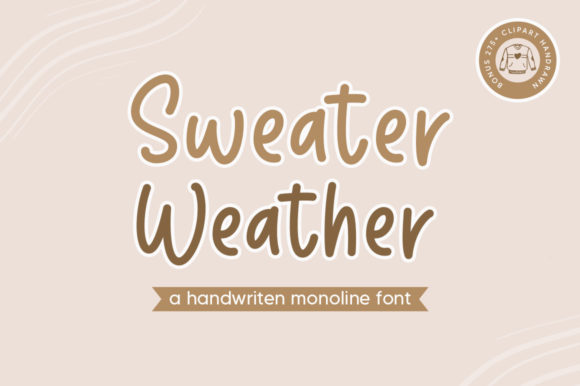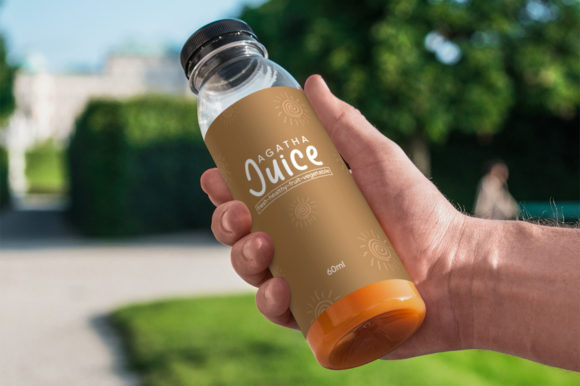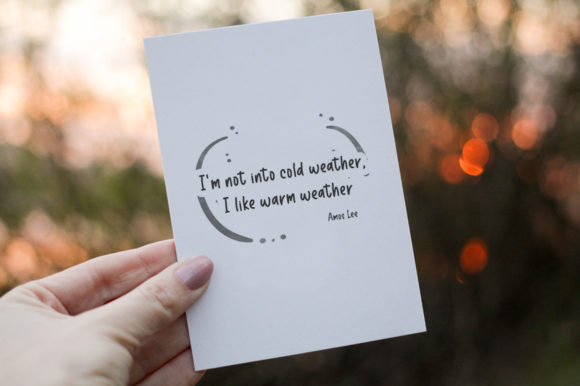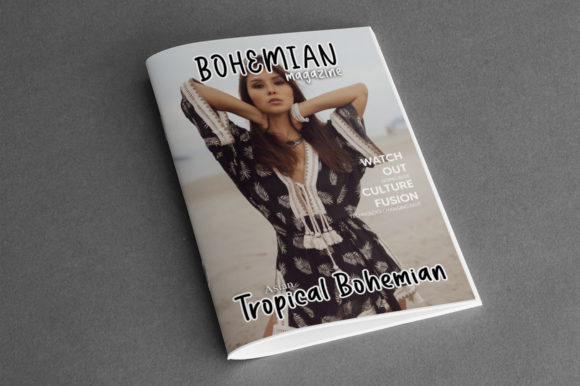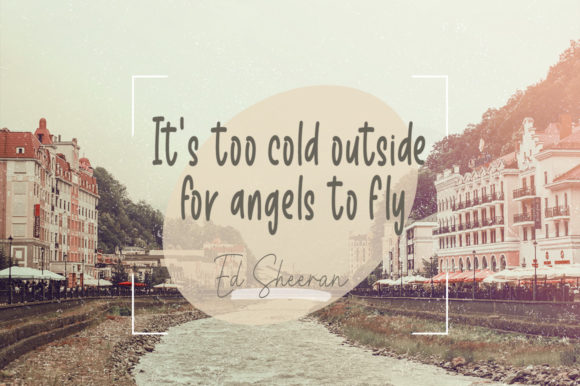
About Sweater Weather Font
Sweater Weather is a cute and simple lettered handwritten font that can be used for all chalkboard quotes or teaching material! Its authentic look will add a personal and realistic feel to your designs.